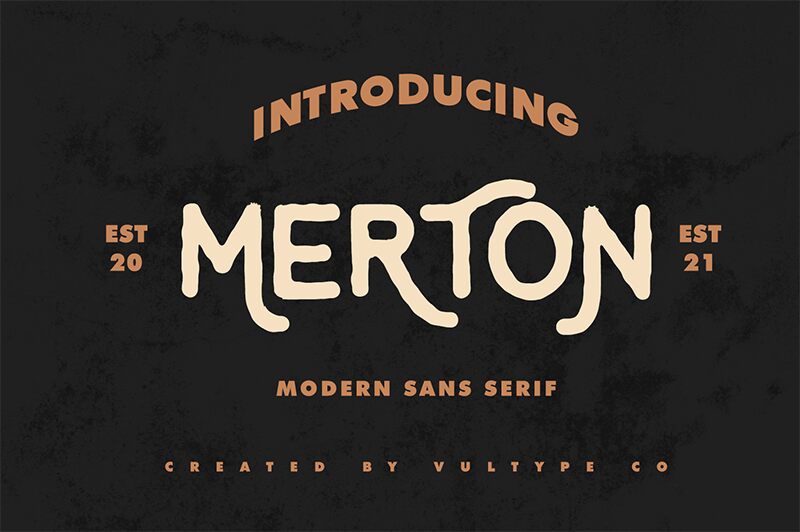
Merton
Merton, a captivating display font crafted by the talented team at Vultype, exudes a raw, weathered charm that commands attention. Its eroded, textured aesthetic evokes a sense of industrial grit, conveying a bold and unapologetic visual narrative. The striking letterforms blend seamless curves with jagged edges, creating a visually striking and memorable typographic experience.
Merton's unique character lends itself perfectly to a variety of design projects, from bold branding and packaging to impactful editorial layouts and eye-catching posters. Its rugged, attention-grabbing presence makes it an excellent choice for projects seeking to convey a sense of strength, authenticity, or a distinct industrial-inspired aesthetic.